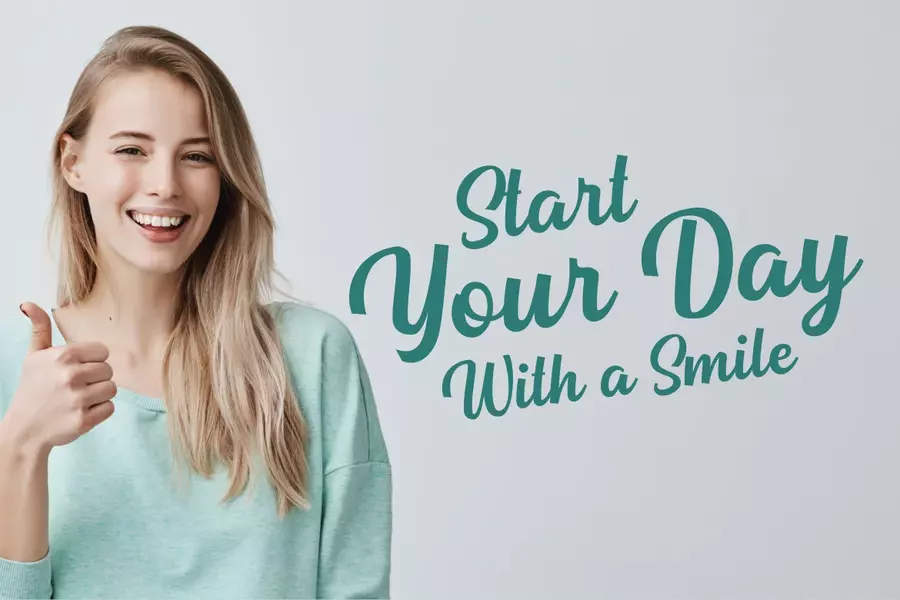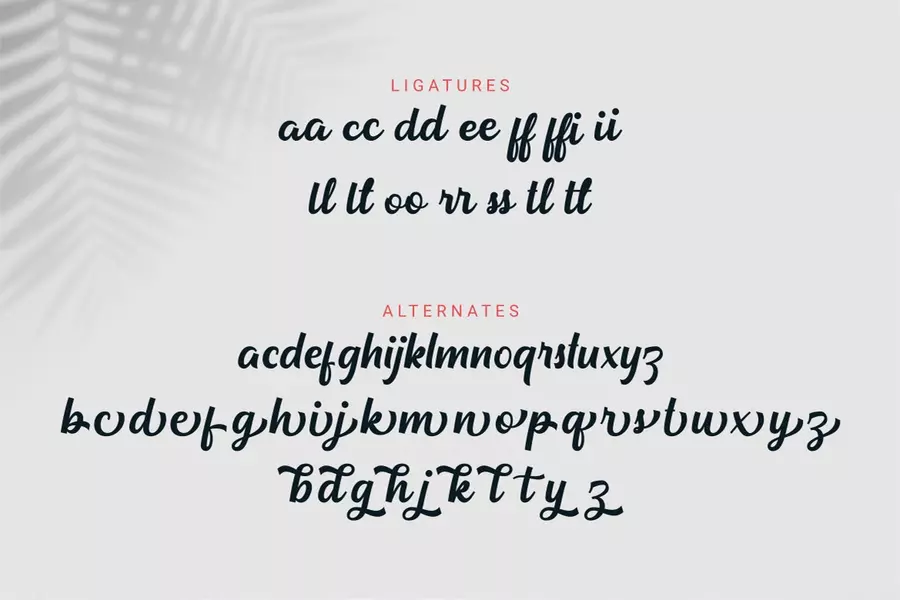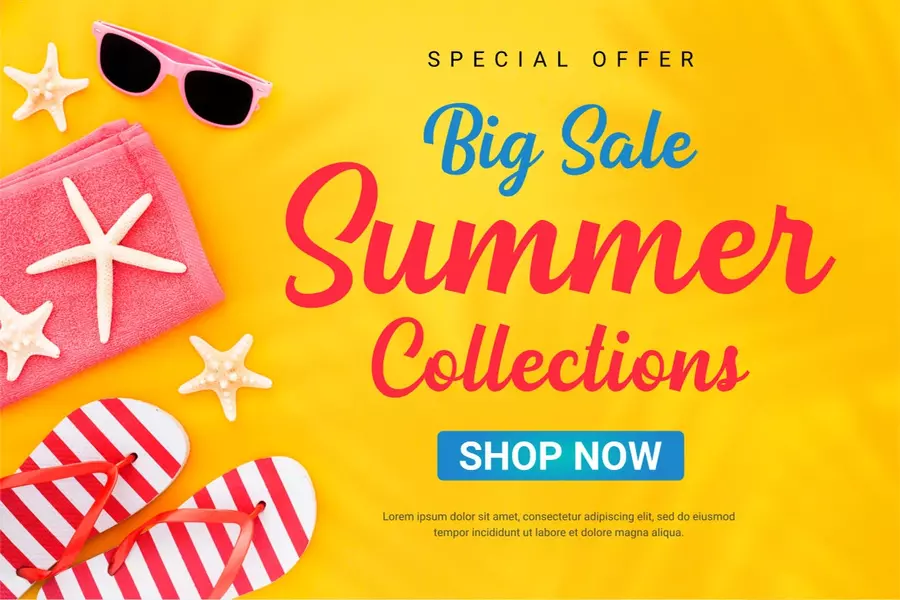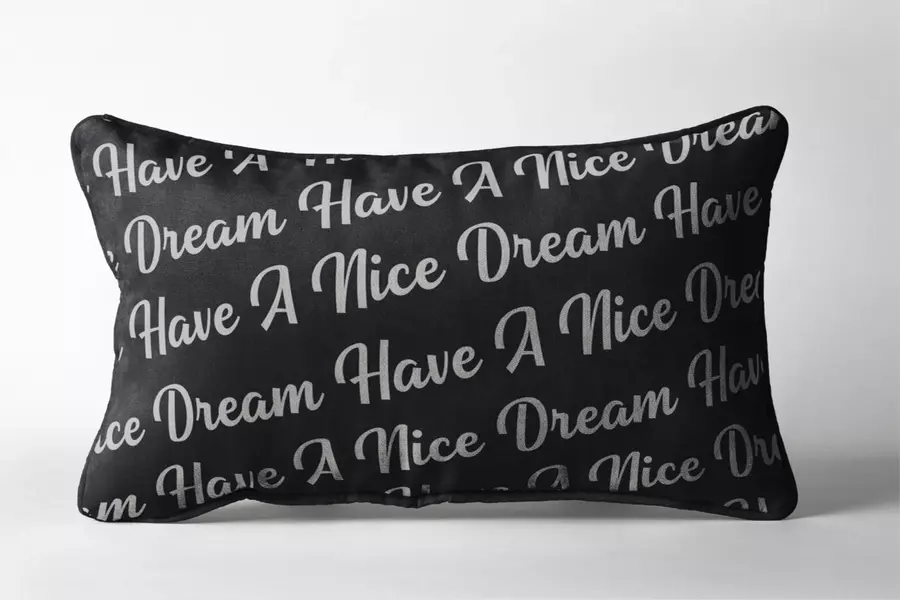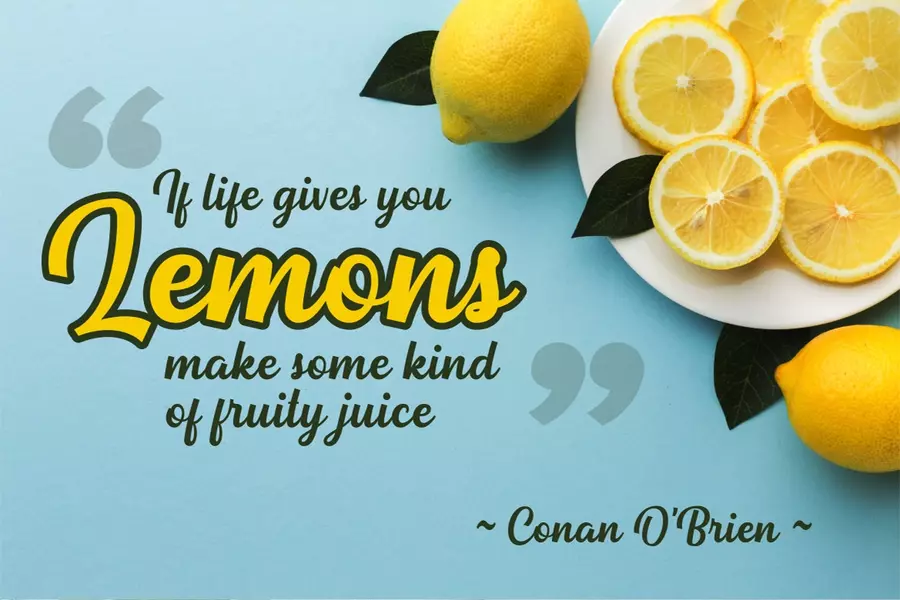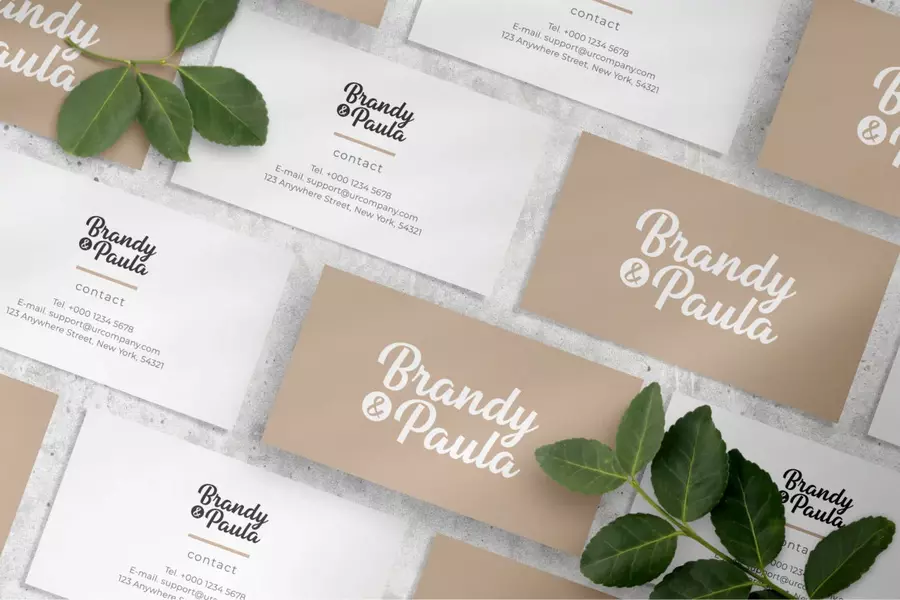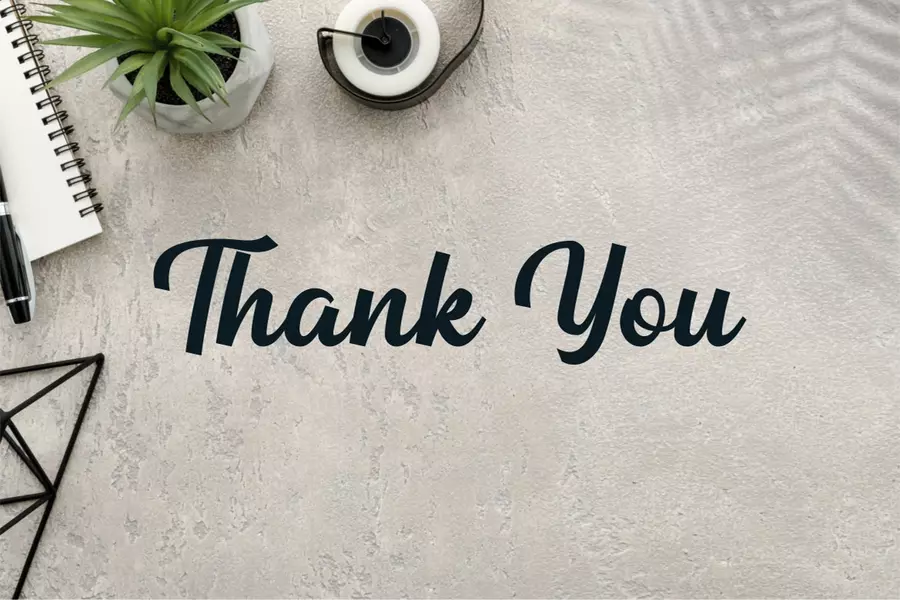
Allentown – Vintage Script Font
Allentown is a script font with a vintage and retro style. This font is great for your next creative project such as logos, printed quotes, invitations, cards, product packaging, headers, logotypes, letters, posters, apparel designs, labels, and etc. Allentown comes with uppercase, lowercase, numerals, punctuations, ligatures & multilingual support characters.